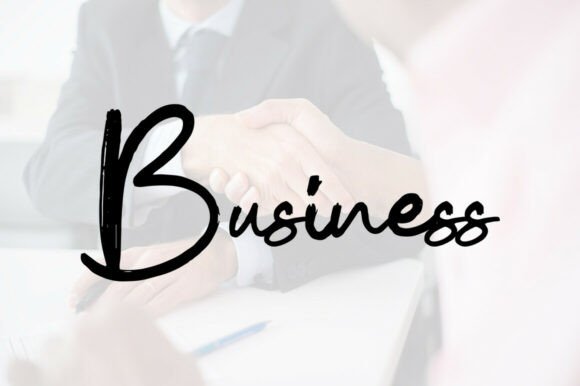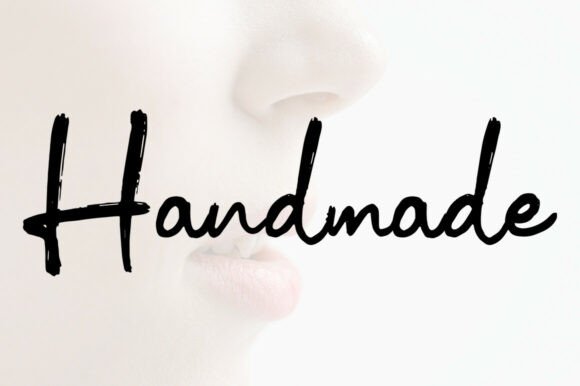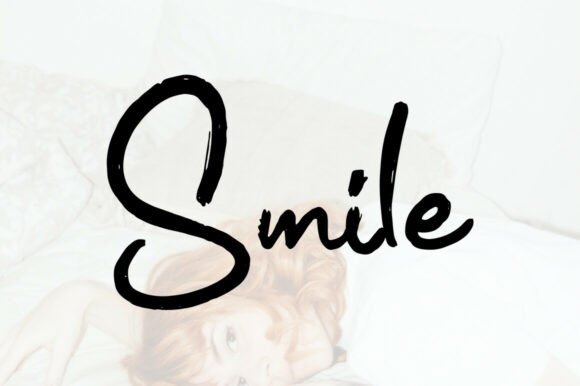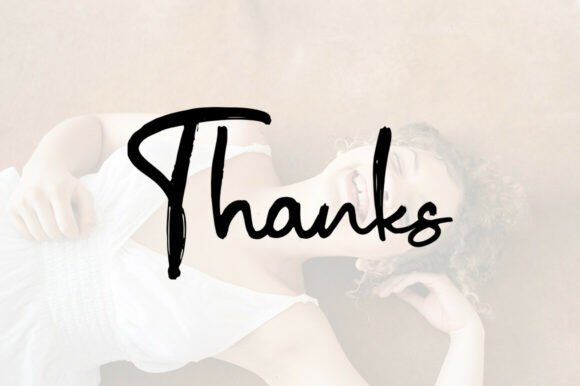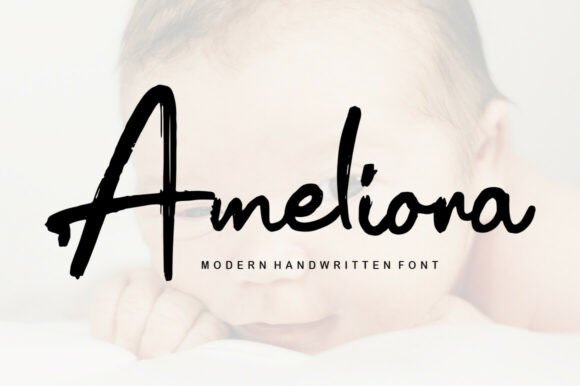
Introducing Ameliora Font: The Sweet and Friendly Handwritten Font for Your Creative Projects
Are you a designer or crafter looking for a font that can add a personal touch to your work? Look no further than Ameliora Font, a sweet and friendly handwritten font that’s perfect for creating beautiful wedding invitations, cards, and other designs that require a lovely touch.
What is Ameliora Font?
Ameliora Font is a fresh and casual handwritten font that’s designed to bring a sense of warmth and personality to your projects. Its sweet and friendly style makes it ideal for a variety of creative applications, from wedding invitations and cards to branding and packaging.
Key Features of Ameliora Font
- Handwritten style: Ameliora Font has a beautiful, handwritten style that’s perfect for adding a personal touch to your designs.
- Sweet and friendly: The font’s sweet and friendly style makes it perfect for creating designs that are warm, inviting, and engaging.
- Fresh and casual: Ameliora Font has a fresh and casual style that’s perfect for creating modern and trendy designs.
- High-quality: The font is designed to be high-quality and easy to read, making it perfect for use in a variety of creative projects.
Uses for Ameliora Font
Ameliora Font is a versatile font that can be used in a variety of creative projects, including:
- Wedding invitations: The font’s sweet and friendly style makes it perfect for creating beautiful wedding invitations that are both elegant and personal.
- Cards: Ameliora Font is ideal for creating greeting cards, birthday cards, and other types of cards that require a personal touch.
- Branding and packaging: The font’s fresh and casual style makes it perfect for use in branding and packaging projects that require a modern and trendy look.
- Social media graphics: Ameliora Font can be used to create beautiful social media graphics, including Facebook posts, Instagram posts, and Twitter headers.
Benefits of Using Ameliora Font
There are many benefits to using Ameliora Font in your creative projects, including:
- Unique and personalized: The font’s handwritten style makes it unique and personalized, allowing you to add a touch of personality to your designs.
- Easy to read: Ameliora Font is designed to be easy to read, making it perfect for use in a variety of creative projects.
- Versatile: The font’s versatile style makes it perfect for use in a variety of creative projects, from wedding invitations to social media graphics.
- High-quality: Ameliora Font is designed to be high-quality, making it perfect for use in professional designs.
Tips for Using Ameliora Font
Here are some tips for using Ameliora Font in your creative projects:
- Use it for headlines and titles: Ameliora Font is perfect for use in headlines and titles, where its sweet and friendly style can really shine.
- Pair it with other fonts: The font can be paired with other fonts to create a unique and interesting look.
- Experiment with different colors: Ameliora Font can be used with a variety of colors to create a unique and eye-catching look.
- Use it to add a personal touch: The font’s handwritten style makes it perfect for adding a personal touch to your designs.
Ameliora Font is a sweet and friendly handwritten font that’s perfect for adding a personal touch to your creative projects. Its fresh and casual style makes it ideal for use in a variety of designs, from wedding invitations to social media graphics. With its high-quality design and versatile style, Ameliora Font is a great choice for designers and crafters looking to add a unique and personalized touch to their work.